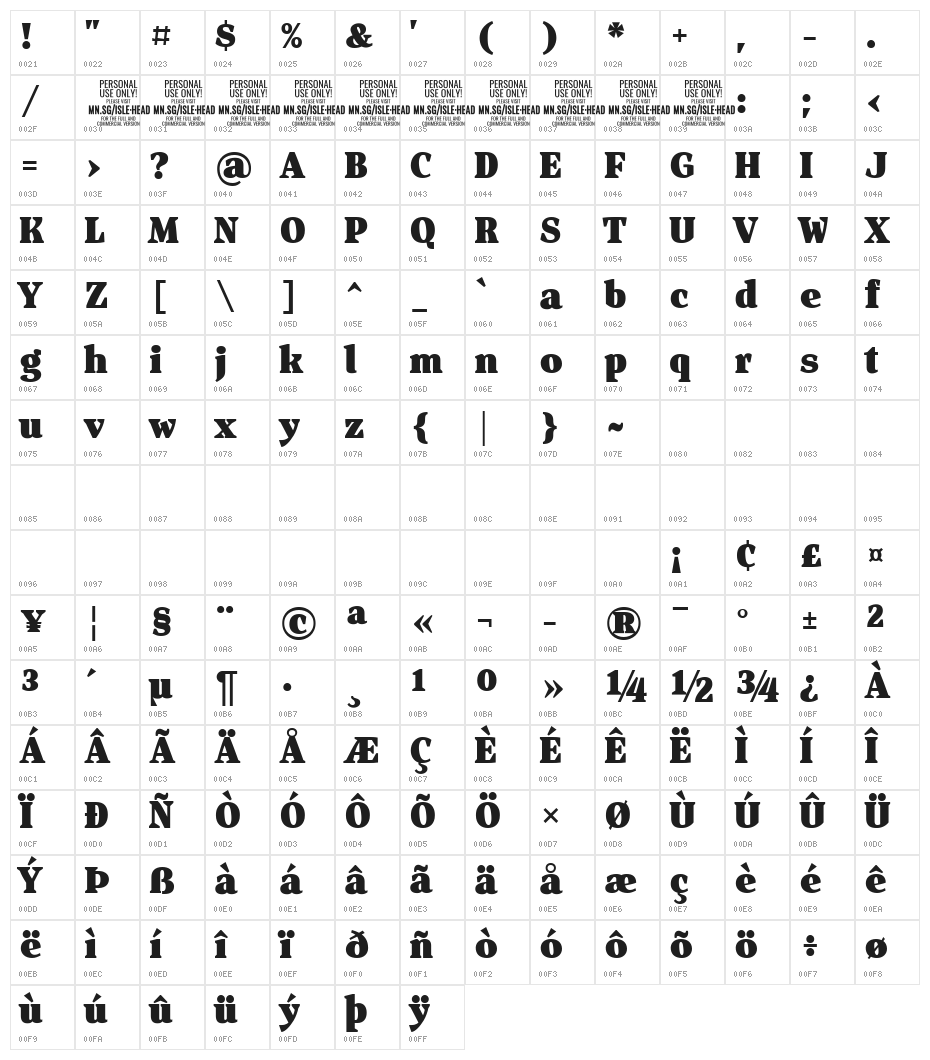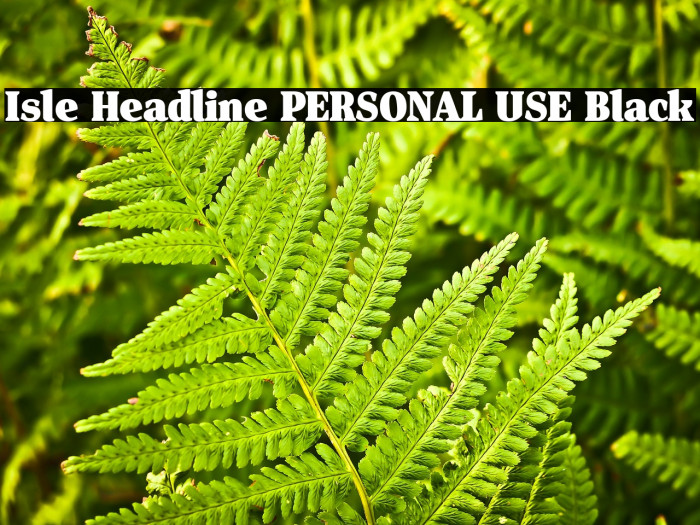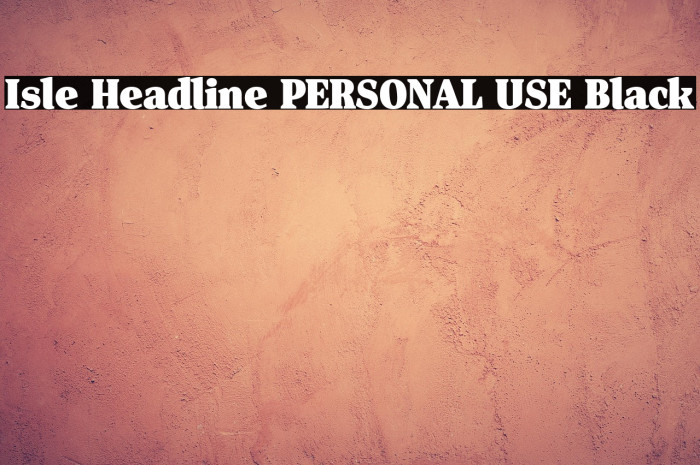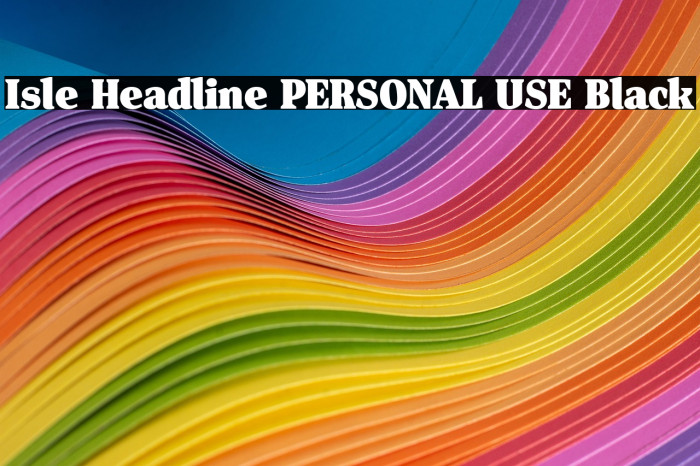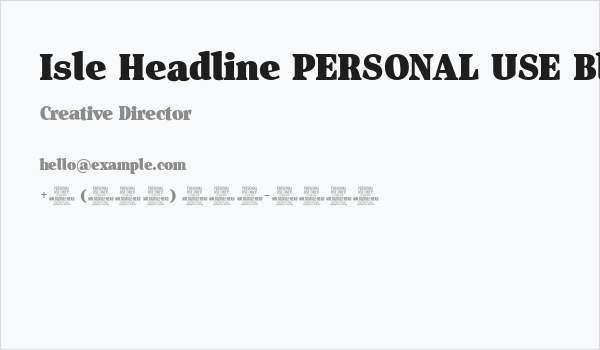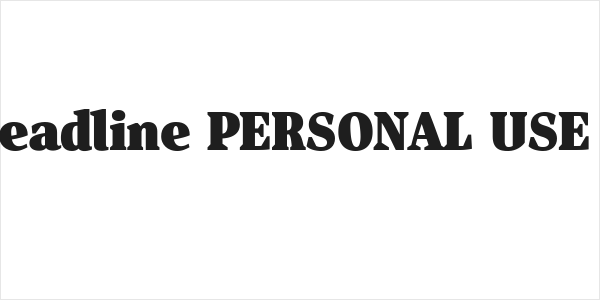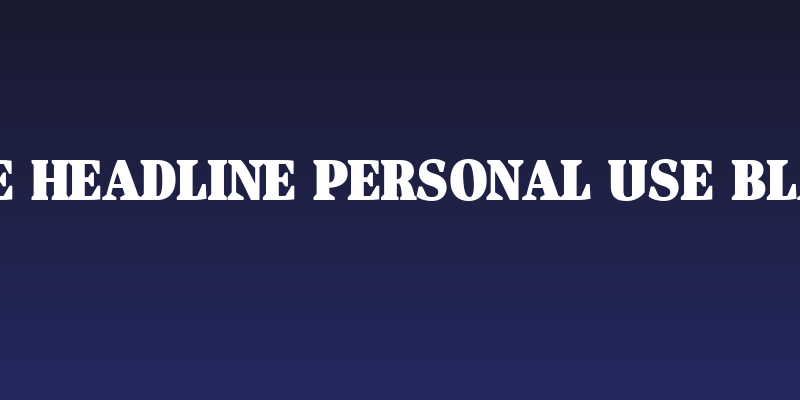
Isle Headline PERSONAL USE Black Font
Isle Headline PERSONAL USE Black Description
This font features bold, impactful characters with a strong presence, ideal for making statements. The uppercase letters are robust and commanding, while the lowercase letters maintain a consistent weight, offering a cohesive look. The numerals and special characters are equally bold, ensuring uniformity across all text elements. The design is characterized by thick strokes and minimal contrast, giving it a solid, substantial feel. Its style is modern yet timeless, making it versatile for various design needs.